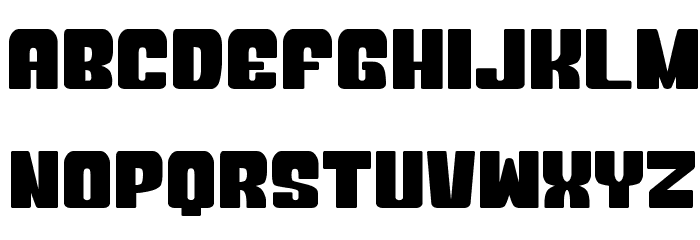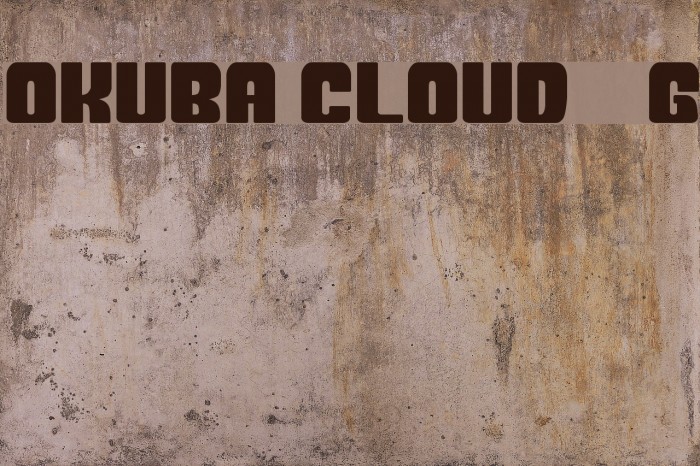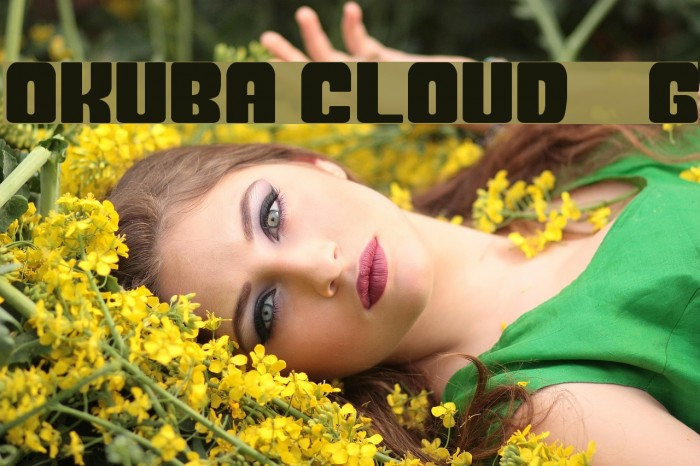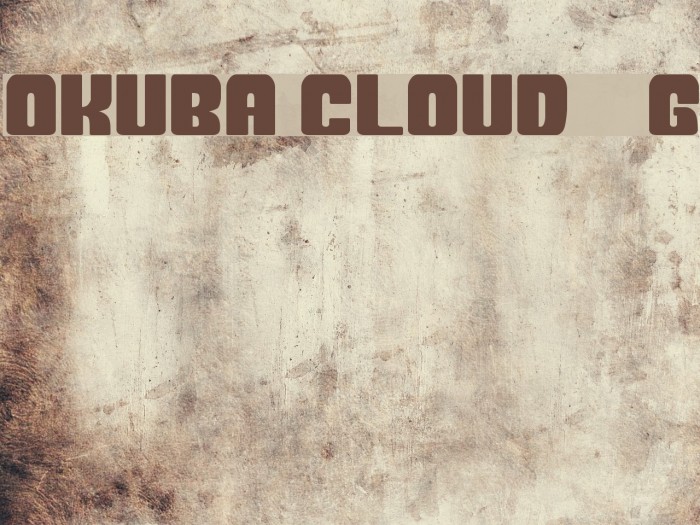
Okuba Cloud__G Font
This font features bold, blocky characters with a strong presence. The letters are uniformly thick, giving them a robust and impactful appearance. The style is reminiscent of vintage or retro designs, with a modern twist that makes it suitable for contemporary use. The characters are evenly spaced, ensuring readability while maintaining a cohesive look. The numbers and special characters follow the same bold style, making them stand out effectively.
A bold, blocky font with a vintage-modern style.
- Font: Okuba Cloud__G
- Proposed Projects: Ideal for posters, headlines, branding, and logos where a strong, impactful font is needed.
- Overall Style: Vintage, Modern